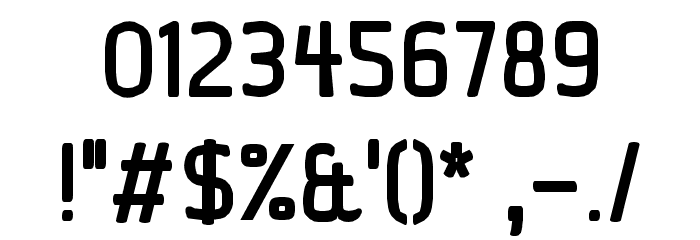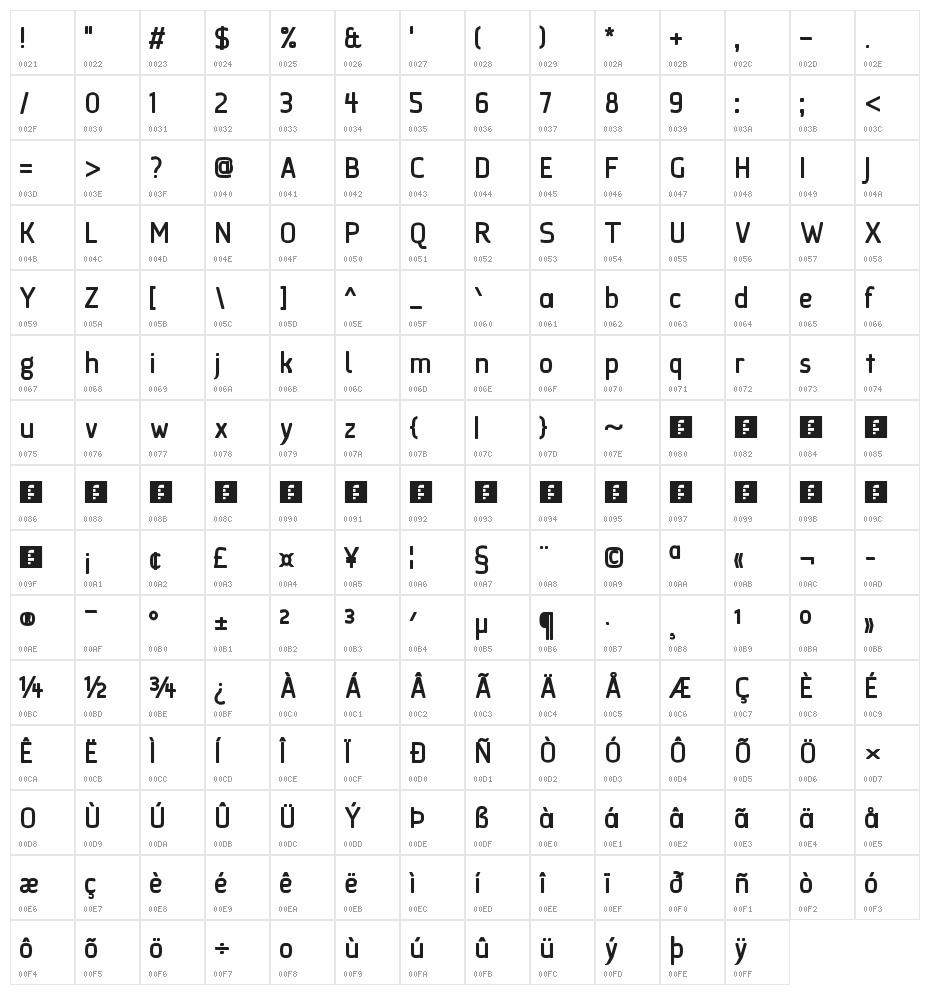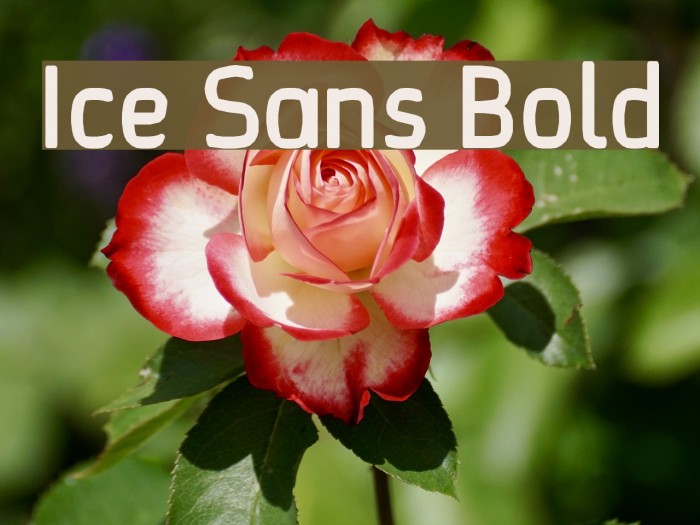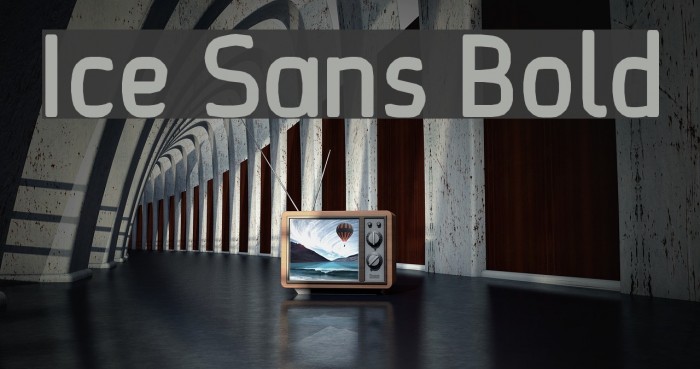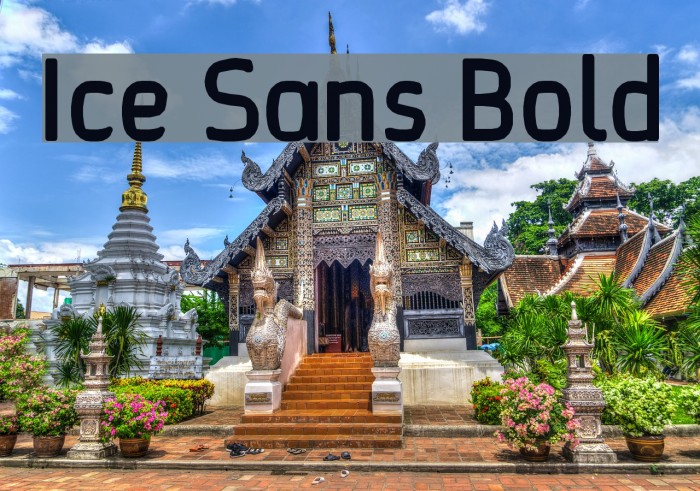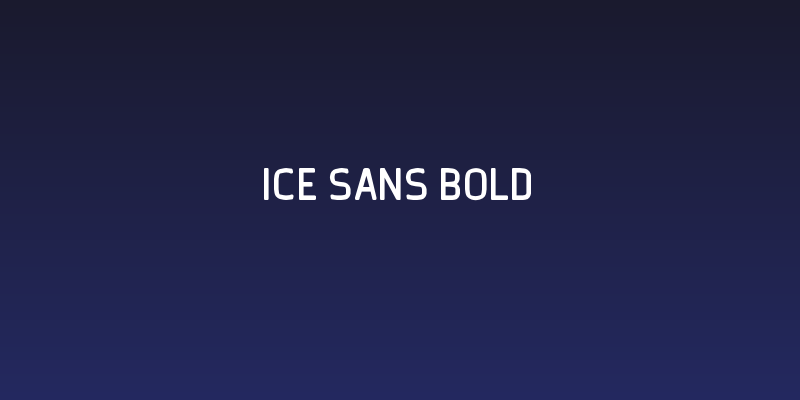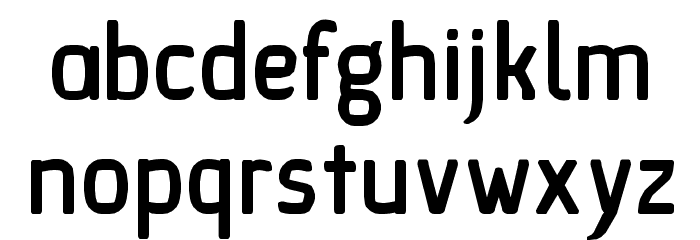
Ice Sans Bold Font
Ice Sans Bold Description
This font features a clean and modern sans-serif style with bold, rounded edges that give it a friendly and approachable appearance. The characters are evenly spaced, providing a balanced and harmonious look. The uppercase letters are slightly taller than the lowercase, maintaining a consistent width that enhances readability. The numerals are distinct and clear, making them suitable for various applications. Special characters are well-defined, adding versatility to the font's usage. Overall, this font is ideal for projects that require a contemporary and professional touch.
| Use Case | Headlines, Logos, Digital content |
| Proposed Projects | Ideal for branding, headlines, digital content, and advertising materials. |